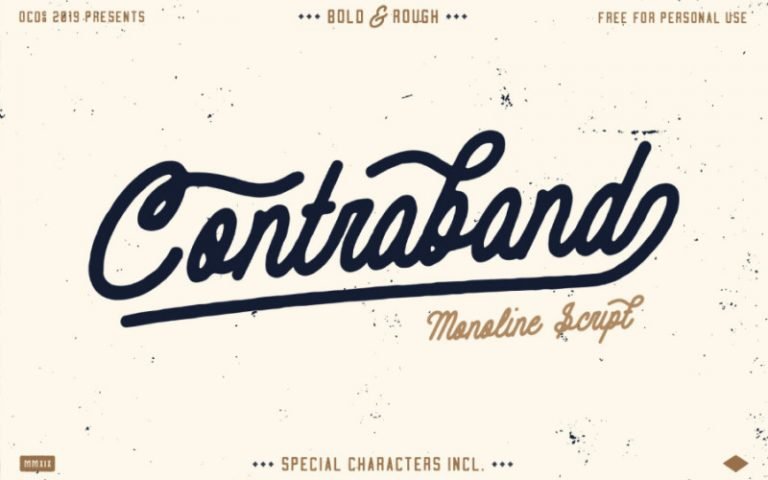
Contraband Script Font
Hi Guys! This font is made with old nuances that are suitable for vintage / retro themed events. Introducing Contraband Font. This font is suitable to use as a logotype, product designs, label, watermark, social media posts, apparel, invitation, signboard, sport club, motor / car, special events or anything that need handwriting taste.